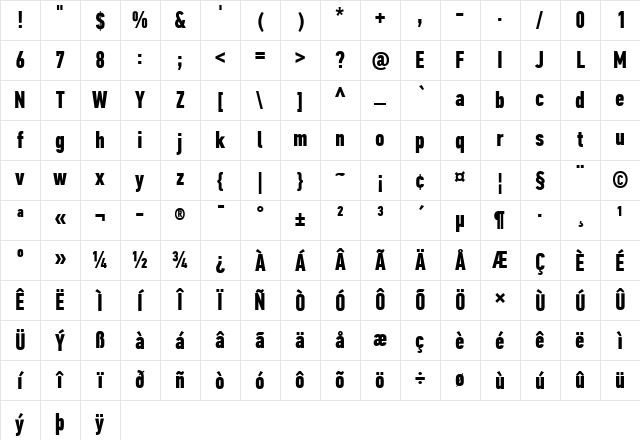
PF Din Text Comp Pro Bold Free Font
PF Din Text Comp Pro Bold
Foundry: Parachute￿ Worldwide
Designer: Panos Vassiliou
Design Context for PF Din Text Comp Pro
PF Din Text Comp Pro is a composed and adaptable typeface that performs quietly and consistently across a wide range of design contexts. Its bold stroke weight gives it real presence on the page.
Pro Tip: Use PF Din Text Comp Pro in both headline and body roles to test its range before committing to a single application.
Who designed the PF Din Text Comp Pro Bold font?